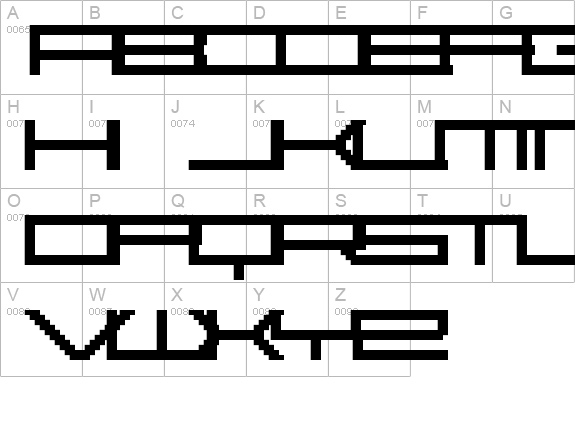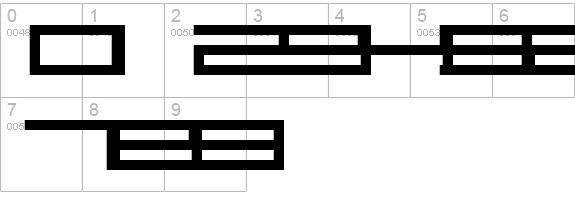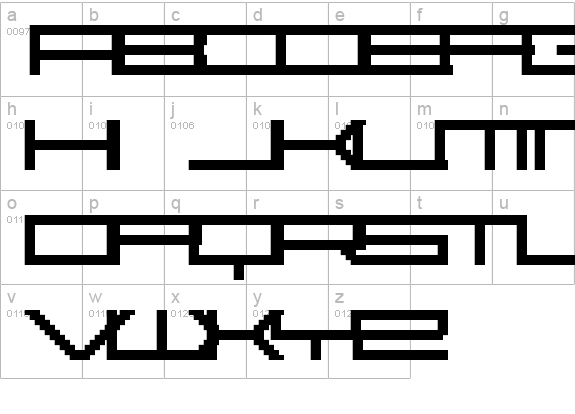
FFF Sailor Font Details
The FFF Sailor font is a charming and whimsical typeface that brings a touch of nautical flair to your designs. With its playful yet elegant letterforms, this font is perfect for projects that require a touch of creativity and imagination. The FFF Sailor font is free to download and use, making it a fantastic choice for designers and creatives looking to add a unique and eye-catching element to their work. You can easily access and download this font for free at FontsMarket.com, where you'll find a wide selection of high-quality fonts for all your design needs. Add a touch of seaside charm to your projects with the delightful FFF Sailor font today!